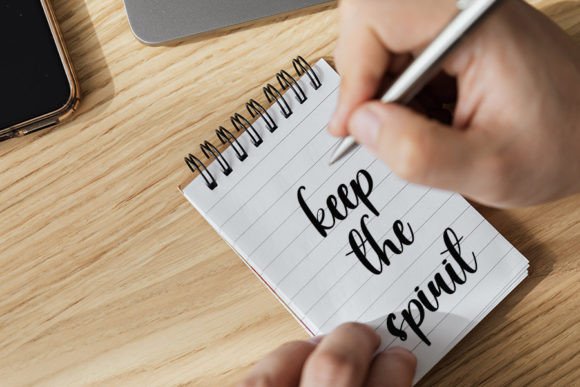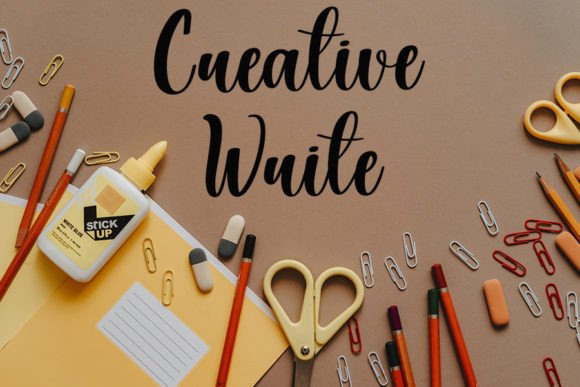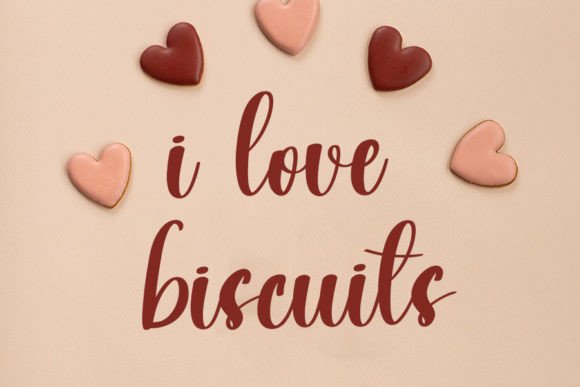
About Black Pinky Font
Black Pinky is a neat and beautiful handwritten font described by an elegant touch, perfect for your favorite projects. Fall in love with its incredibly distinct and timeless style, and use it to create spectacular designs!